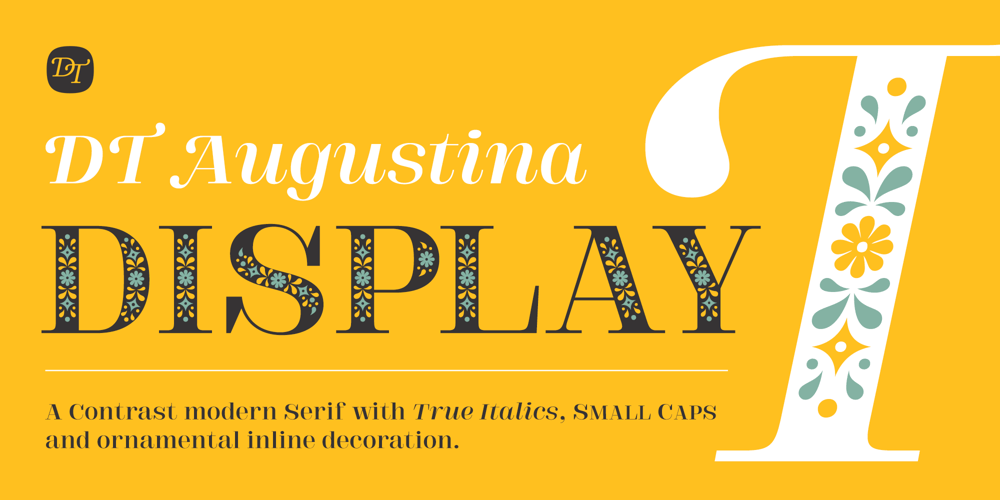
DT Augustina Font Family was designed by Maya De La Deveze and published by Deveze Type. DT Augustina contains 8 styles and family package options. DT Augustina Serif Display is an excellent way to complement the DT Augustine Slab family or you may use it as a separated Display font for your headers, signs, packaging etc. High contrast strokes adding an expression to your typography as well as an elegance with Italic pairing. More than this you may use a Decoration styles to add some bohemian’s mood to your project. Divided decor by two styles you may colorise it by two different colours.DT Augustina Serif Display has Open Type Features such an Italic swashes, ligatures, small capitals, fractions, case sensitive forms, old style and tabular figures, superscript and subscript, circled figures and stylistic alternates which make this font more suitable for any subtle projects.